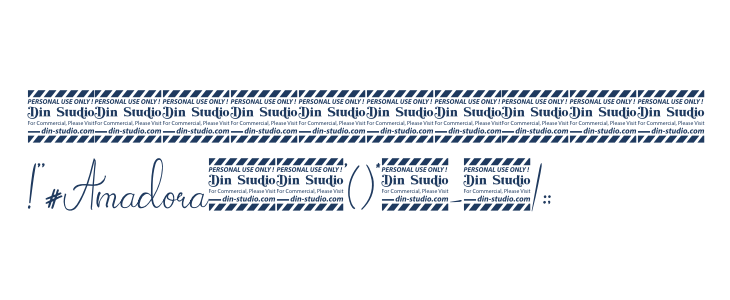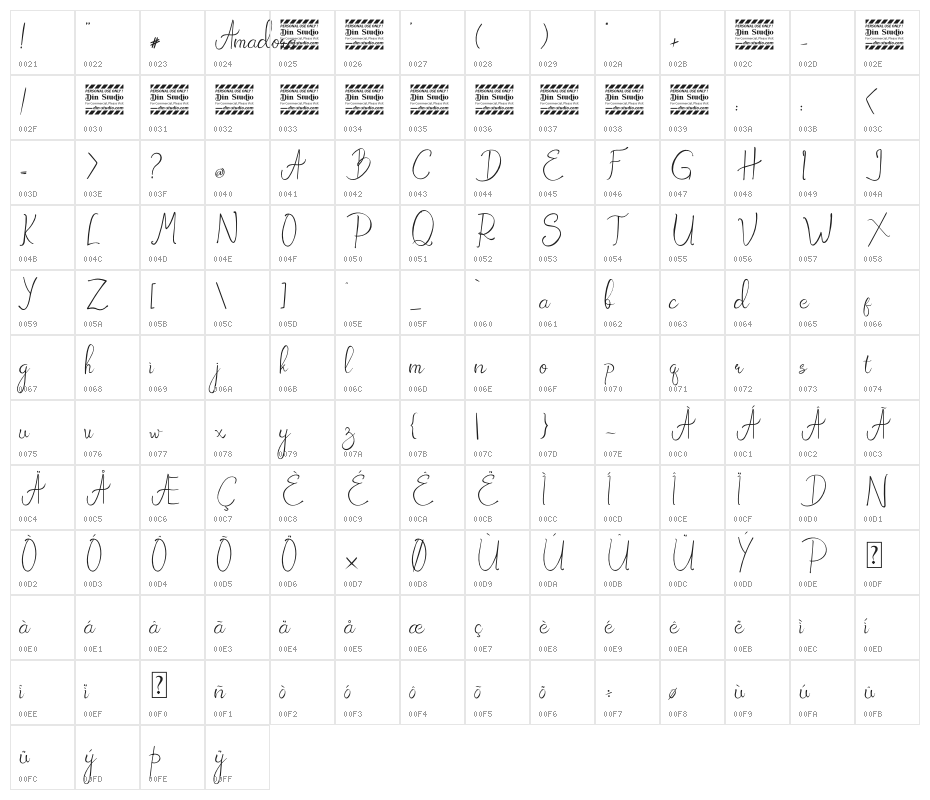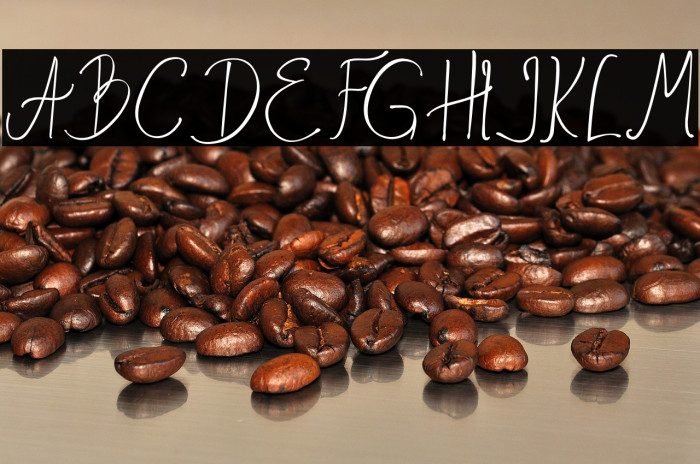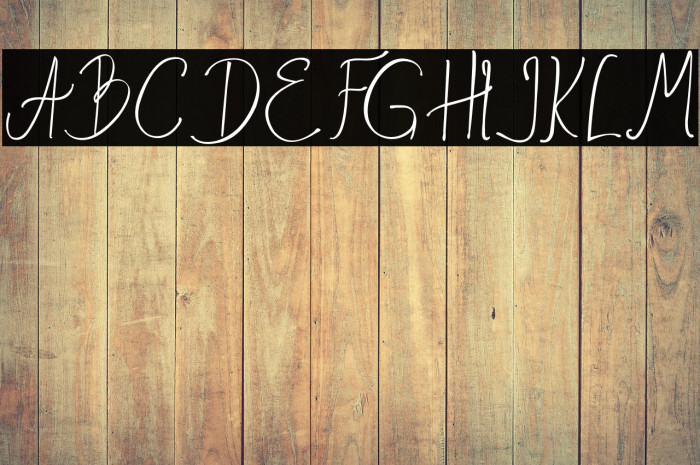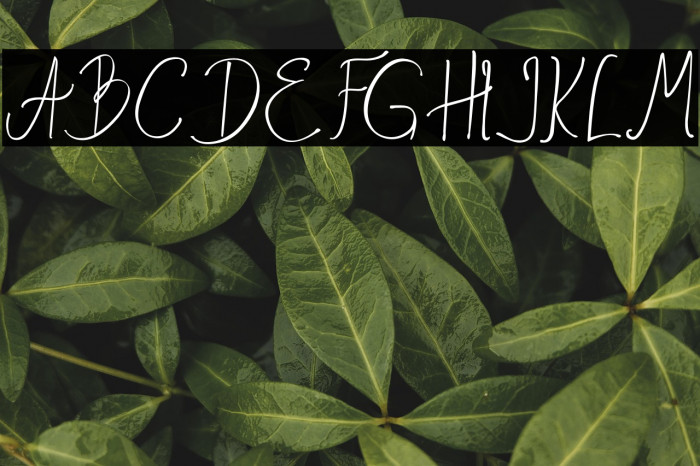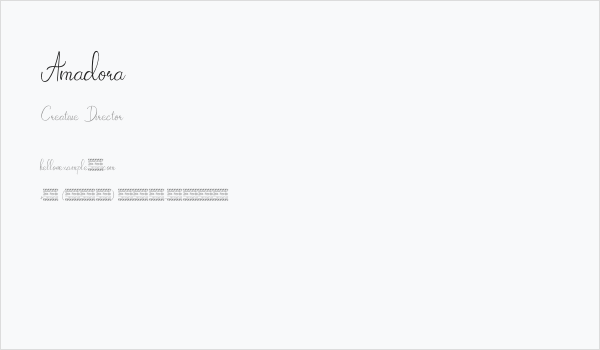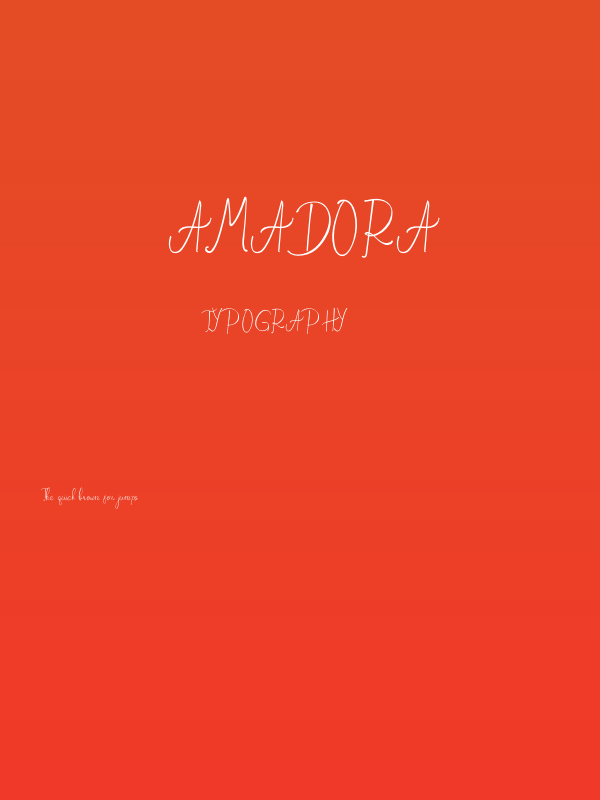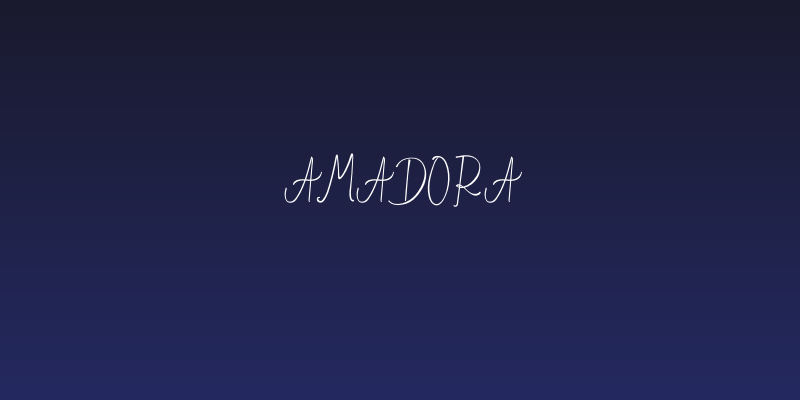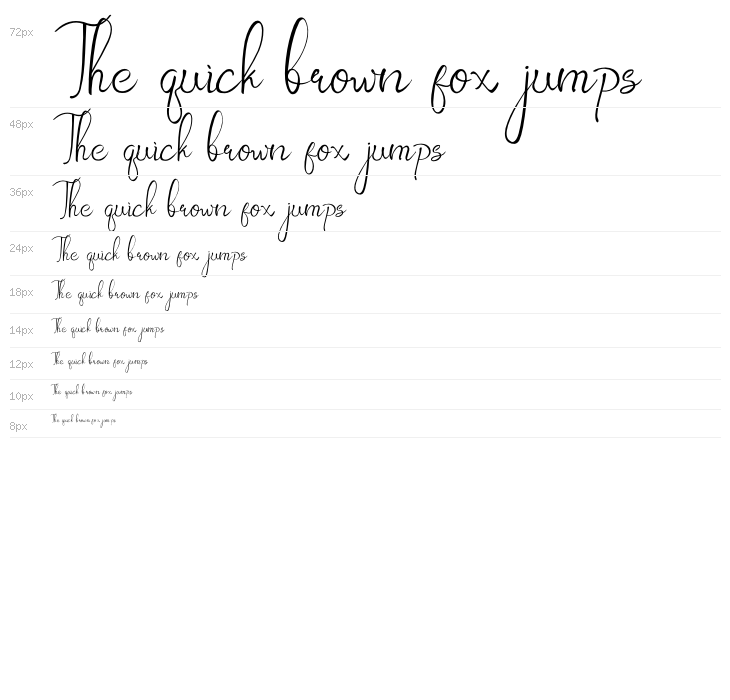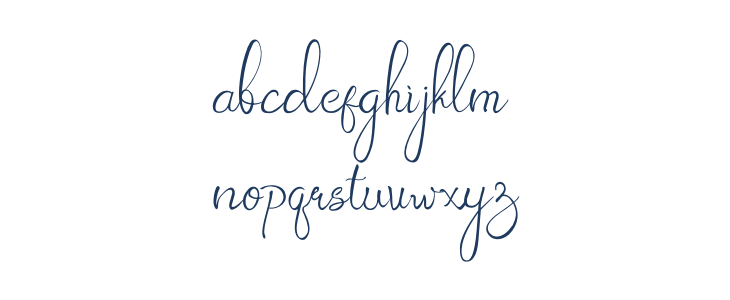
Amadora Font
Amadora Description
This font features an elegant and flowing script style, characterized by its smooth, cursive lines and graceful curves. The uppercase letters are tall and slender, with a slight slant that adds a sense of motion and fluidity. The lowercase letters maintain a consistent style, with loops and swirls that enhance the font's decorative appeal. The numerals and special characters are designed to match the overall aesthetic, ensuring a cohesive look across all text. This font's sophisticated and artistic design makes it suitable for projects that require a touch of elegance and creativity.
| Use Case | Logos, Invitations, Decorative text |
| Proposed Projects | Ideal for wedding invitations, greeting cards, branding, and logo design. |